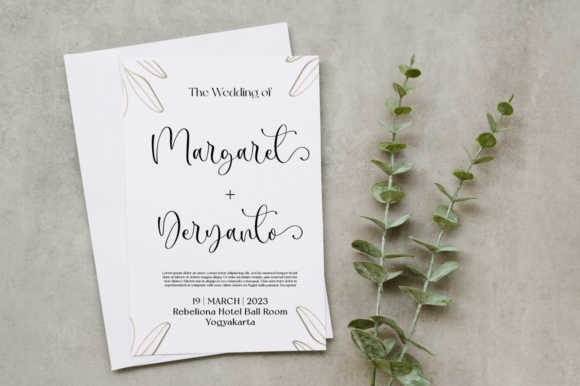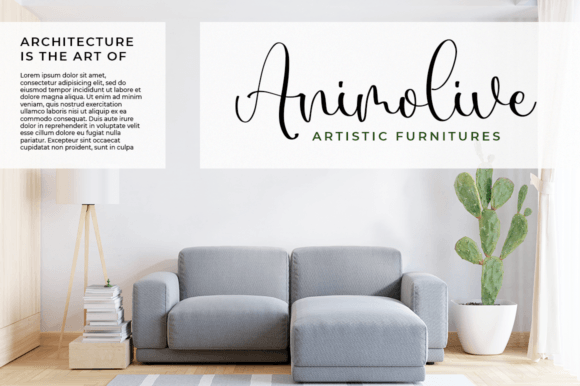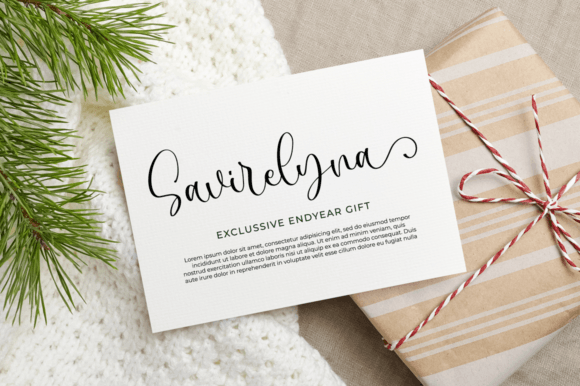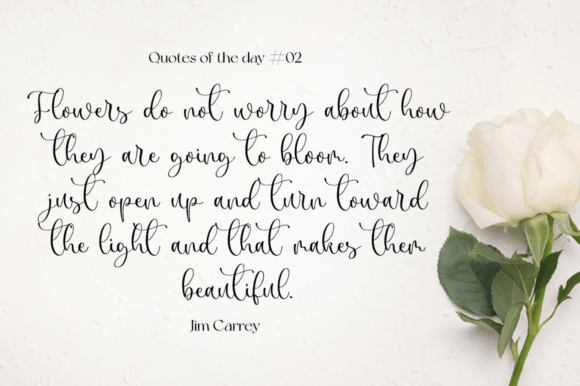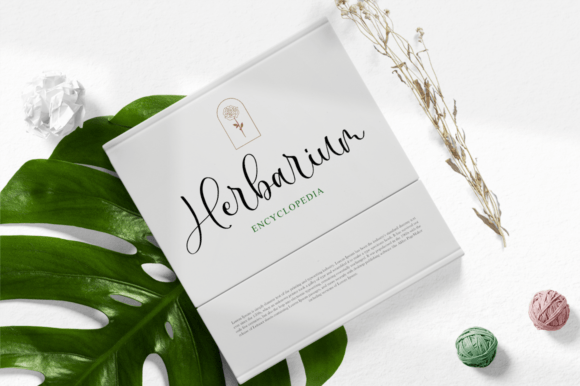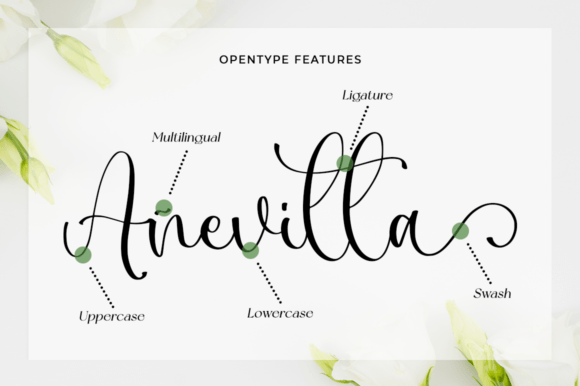
The Perfect Script Font for Your Creative Projects
Have you ever stared at a blank page, searching for the perfect font to bring your creative vision to life? The right font can make all the difference, elevating your design from ordinary to extraordinary. For designers and creatives, finding a font that exudes elegance and sophistication can be a challenge, but we’ve got just the solution.
Introducing the stunning Cecilyana Font, a beautiful script font that will give your designs a refined and modern look. Whether you’re creating logos, branding, invitations, stationery, or social media posts, this font is sure to impress. Its PUA encoded features allow for easy access to all glyphs and swashes, making it a valuable addition to any designer’s toolkit.
Cecilyana Font Key Features
- Font Size: 5,700 glyphs, making it a comprehensive and versatile font
- Unique Characteristics: Elegant and refined script font with intricate flourishes and connections
- Language Support: Supports a wide range of languages, including Latin, Cyrillic, and Greek
- Font Style: Script, Calligraphy, Handwritten
Cecilyana Font Review
As a designer, I was excited to dive into the world of Cecilyana Font. At first glance, I was struck by its ✨ elegant and refined aesthetic ✨. The font’s cursive script style is perfect for creating a sense of luxury and sophistication, making it ideal for high-end branding and marketing materials.
One of the standout features of Cecilyana Font is its versatility. It works beautifully in a variety of contexts, from wedding invitations to luxury packaging. The font is also highly customizable, with a range of weights and styles to choose from.
However, there are a few limitations to consider: ⚠️ font sizes can be tricky to work with, and the font may become too ornate at smaller sizes ⚠️. Additionally, some users have reported issues with font rendering on certain devices.
Overall, I was impressed with Cecilyana Font’s ✨ unique charm ✨ and its ability to elevate a design from ordinary to extraordinary. While it may not be perfect, it’s a valuable addition to any designer’s toolkit.
- ✨ Elegant and refined aesthetic ✨
- ✨ Versatile and highly customizable ✨
- Perfect for high-end branding and marketing materials
- Range of weights and styles to choose from
Cecilyana Font Practical Application Guide
Use Cecilyana Font for:
- Birth announcements and baby shower invitations
- Wedding planners and event coordinators
- Personalized gift tags and cards
For the most visually appealing results, use Cecilyana Font in combination with elegant graphics, pastel colors, and a mix of serif and sans-serif fonts.
Alternatives to Cecilyana Font for Designers
Lato Font is a modern sans-serif typeface designed by Łukasz Dziedzic. It is a versatile font suitable for both digital and print media. Lato is ideal for use in titles, headings, and body text where a clean and modern look is desired.
Compared to Cecilyana Font, Lato Font has a more minimalist and straightforward design, making it a great choice for designers who prefer a clean and simple aesthetic.
Playfair Display Font is a luxurious and elegant serif typeface designed by Claus Eggers Sørensen. It is perfect for use in titles, headings, and other decorative text where a touch of sophistication is required.
Compared to Cecilyana Font, Playfair Display Font has a more ornate and luxurious design, making it a great choice for designers who want to add a sense of opulence to their designs.
Montserrat Font is a geometric sans-serif typeface designed by Julieta Ulanovsky. It is a great choice for use in titles, headings, and body text where a modern and urban look is desired.
For optimal readability, we recommend using a font size between 12pt and 14pt for body text. A line height of 1.2 to 1.5 times the font size is also recommended to provide sufficient space between lines of text.